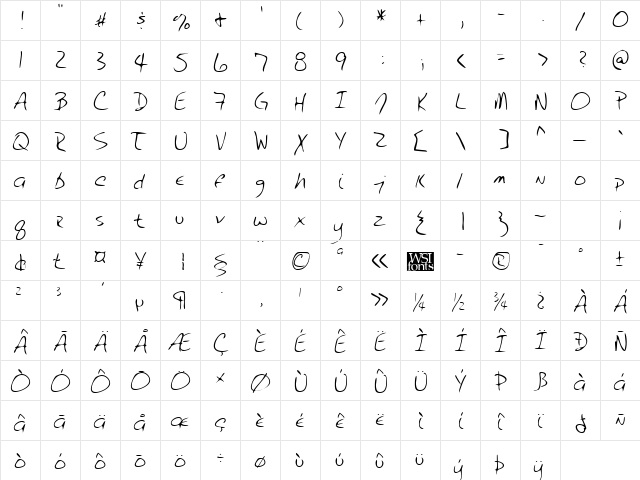
QuentinsHand Regular
Design Context for QuentinsHand Typeface
QuentinsHand brings a calligraphic fluidity to the page — its connecting strokes and expressive curves give it an unmistakably human quality.